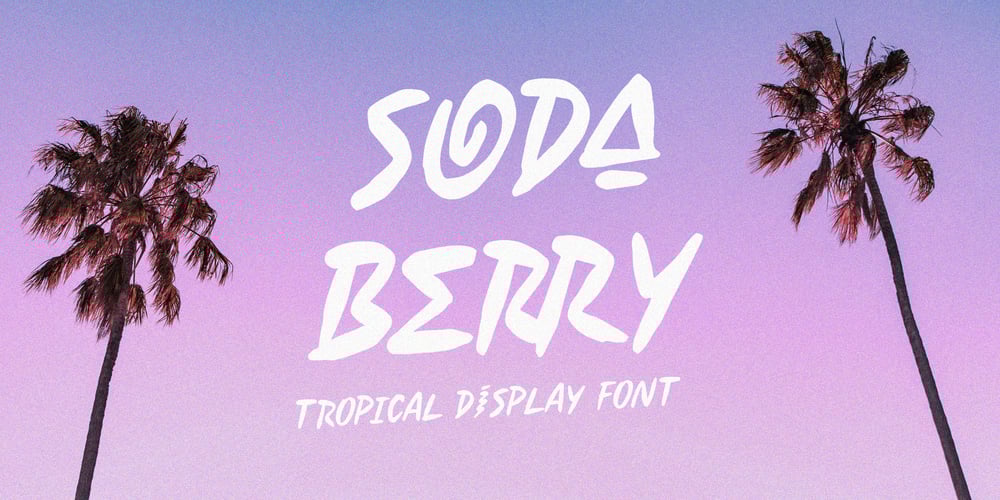
Soda Berry Font Family was designed by Gha Arizal and published by Invasi Studio. Soda Berry contains 1 styles and family package options. Soda Berry is a lovely paint-brushed handwritten font with Tropical Vibes, featuring a sweet flow and unique glyph. It can be used for various purposes such as logos, wedding invitations, headings, letterhead, signage, labels, news, posters, badges and so much more.This font is PUA encoded which means you can access all of the glyphs and swashes with ease!